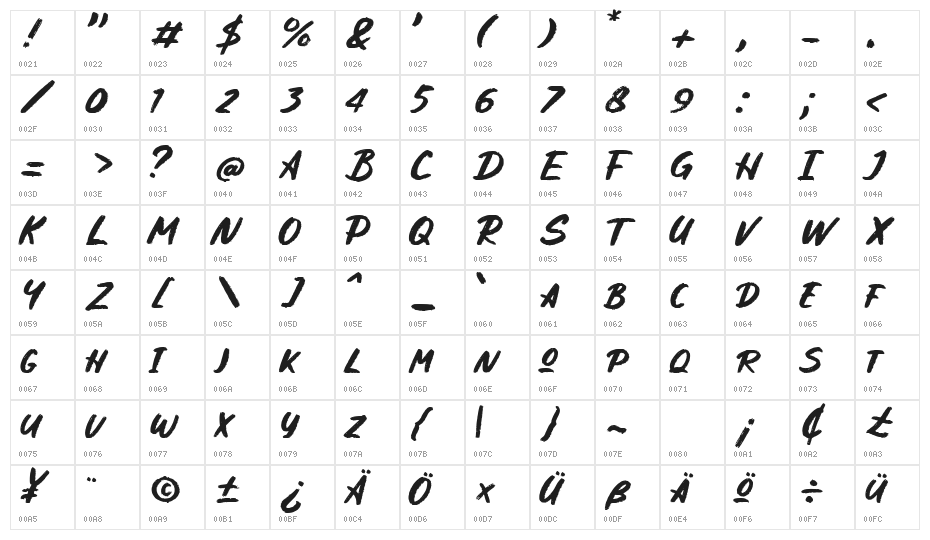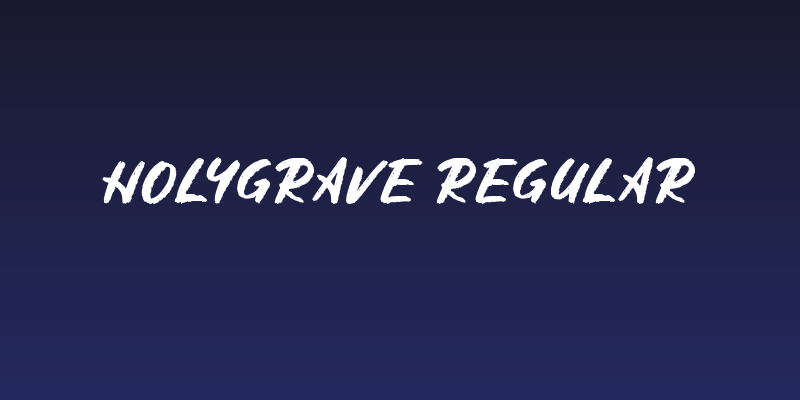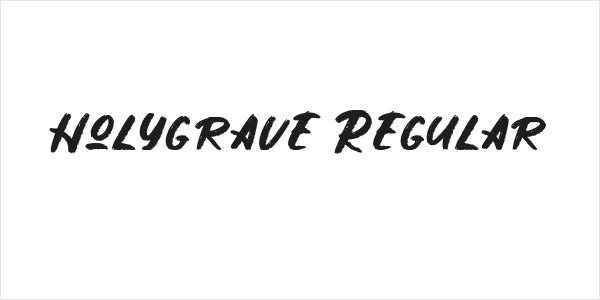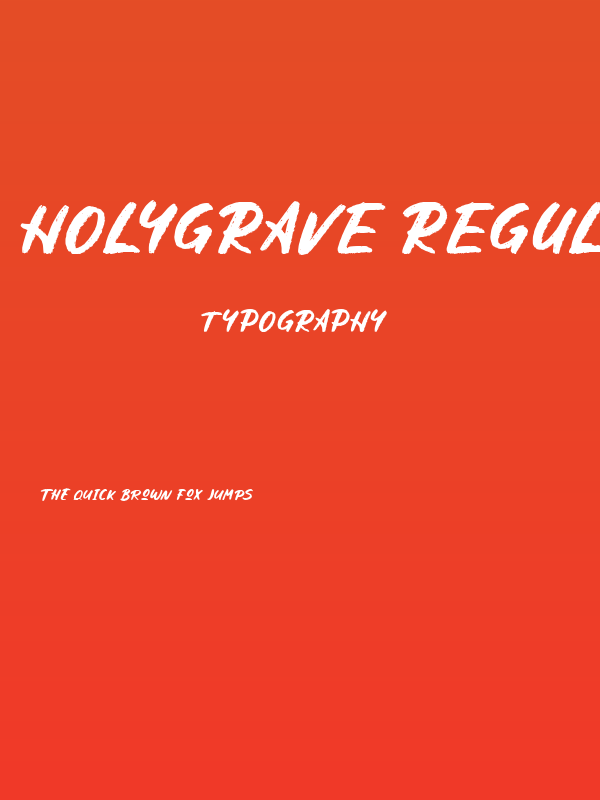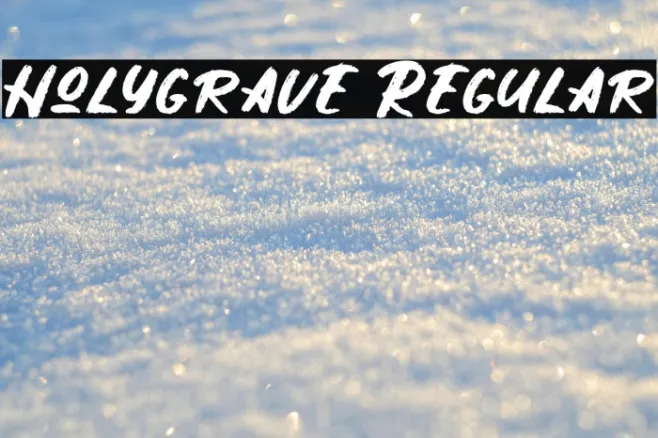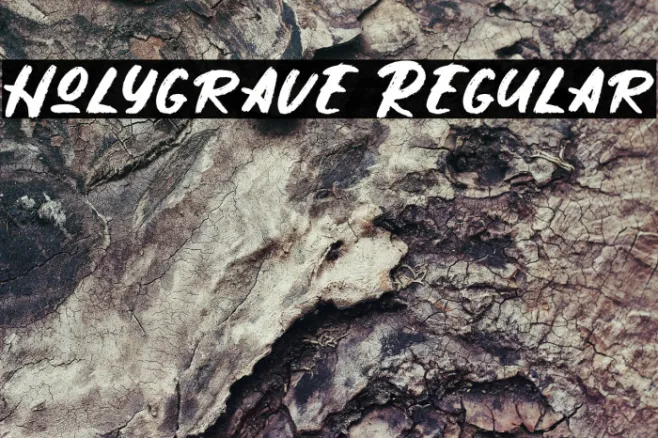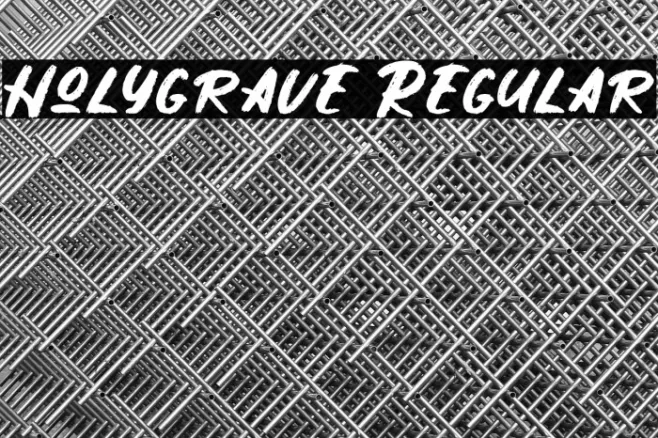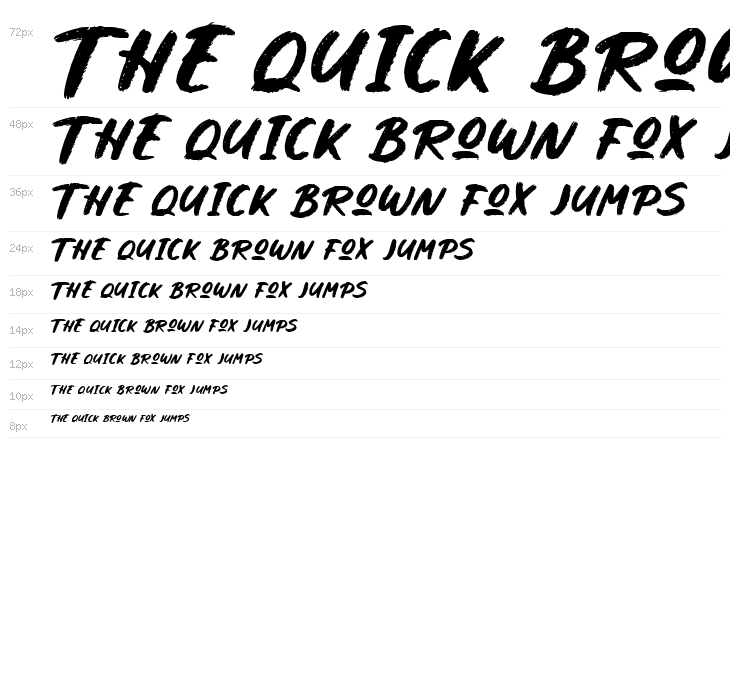
Holygrave Regular Font
Holygrave Regular Description
This font exudes a bold and dynamic presence with its brush-like strokes and slightly irregular edges, giving it a hand-painted appearance. The uppercase and lowercase letters maintain a consistent style, with a slight slant that adds a sense of movement and energy. The numbers and special characters are equally expressive, ensuring a cohesive look across all text elements. The overall texture is rough, yet controlled, making it suitable for projects that require a touch of artistic flair without sacrificing readability.
| Proposed Projects | Ideal for branding, poster design, album covers, and any project seeking a bold, artistic touch. |